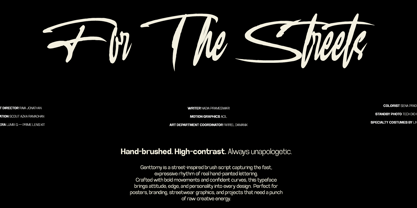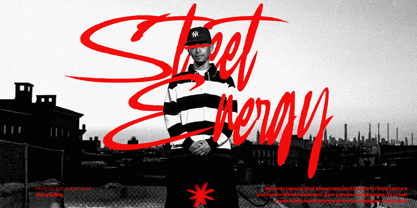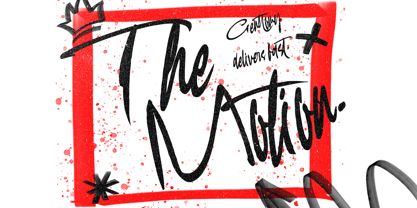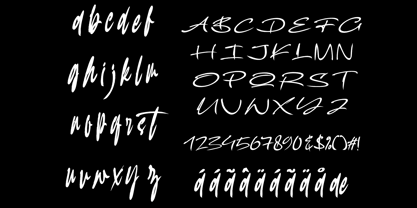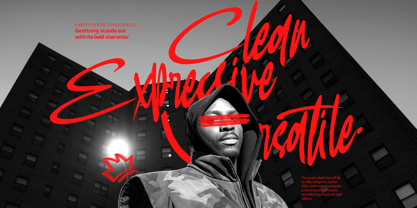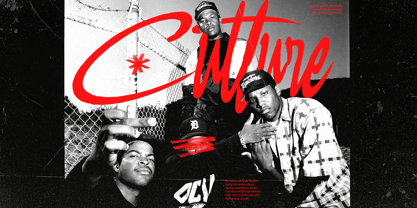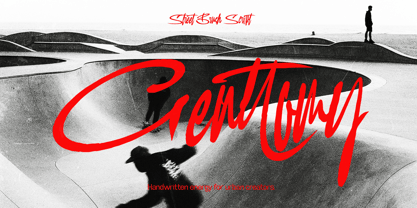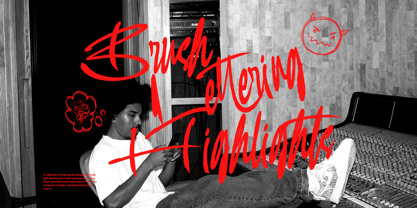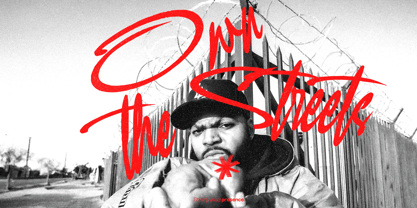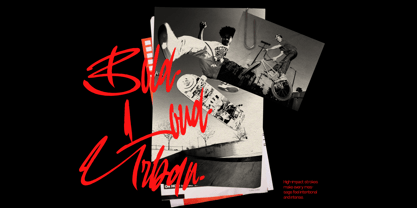
Genttomy
Get the full version of Genttomy, a bold urban brush script that includes uppercase & lowercase characters, numerals, punctuation, and multilingual support in a single. Perfect for streetwear branding, music posters, hip-hop visuals, skateboard deck design, gritty movie titles, urban lifestyle campaigns, underground culture zines, dynamic album covers, sports apparel graphics, edgy headlines, visual storytelling, fast-paced marketing, graffiti-inspired merch, protest design, cultural identity marks, rap video intros, fashion lookbooks, hand-drawn editorial layouts, event flyers, and bold typographic expression across any surface.